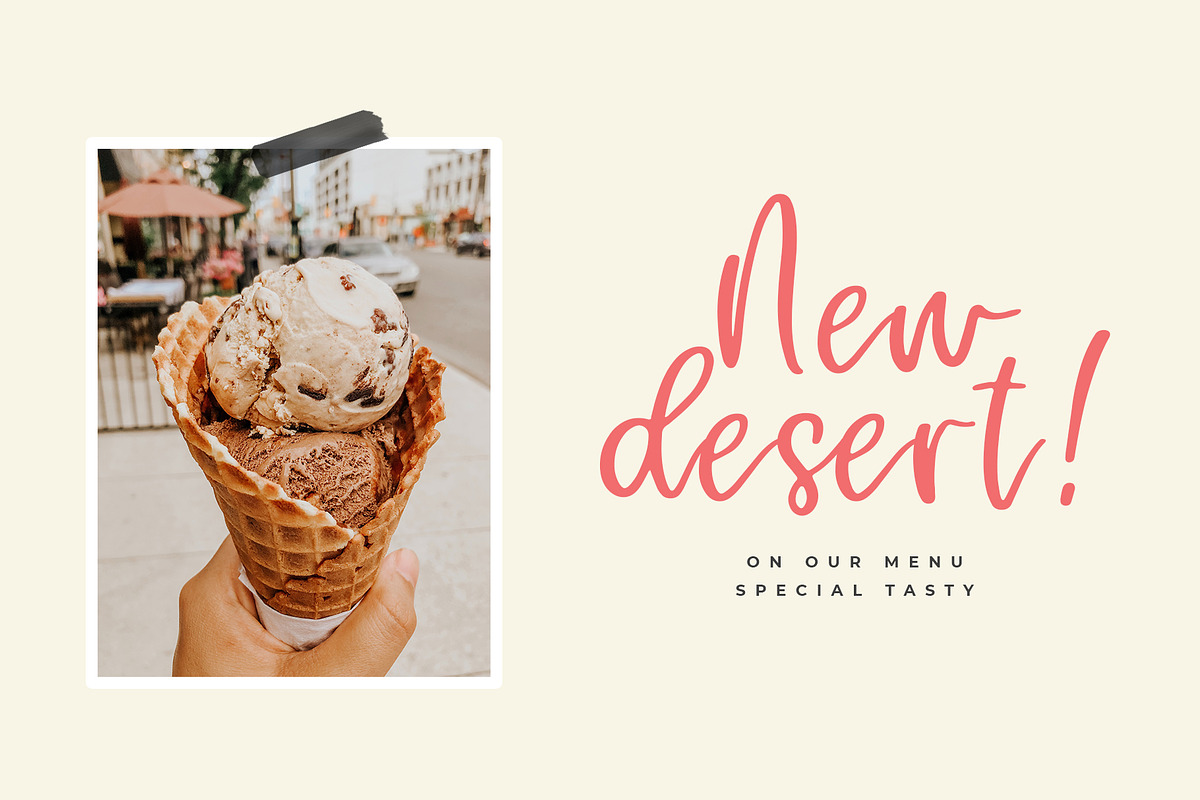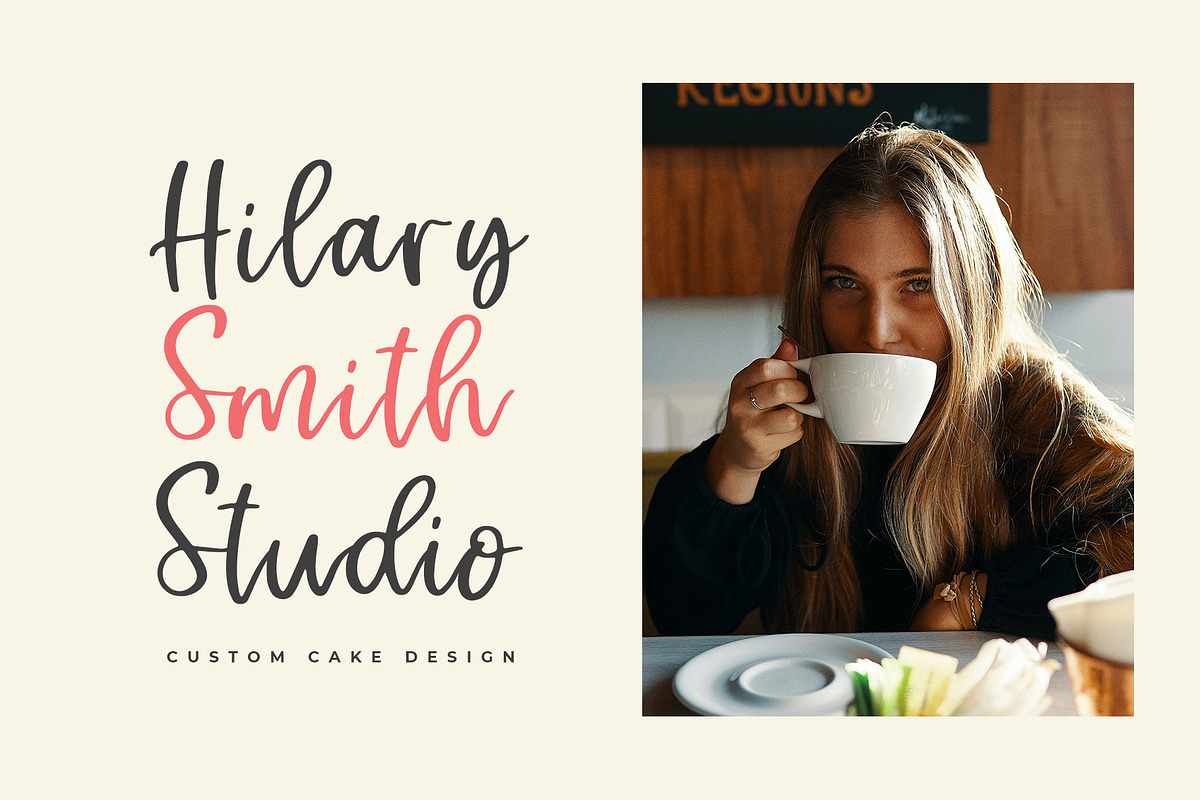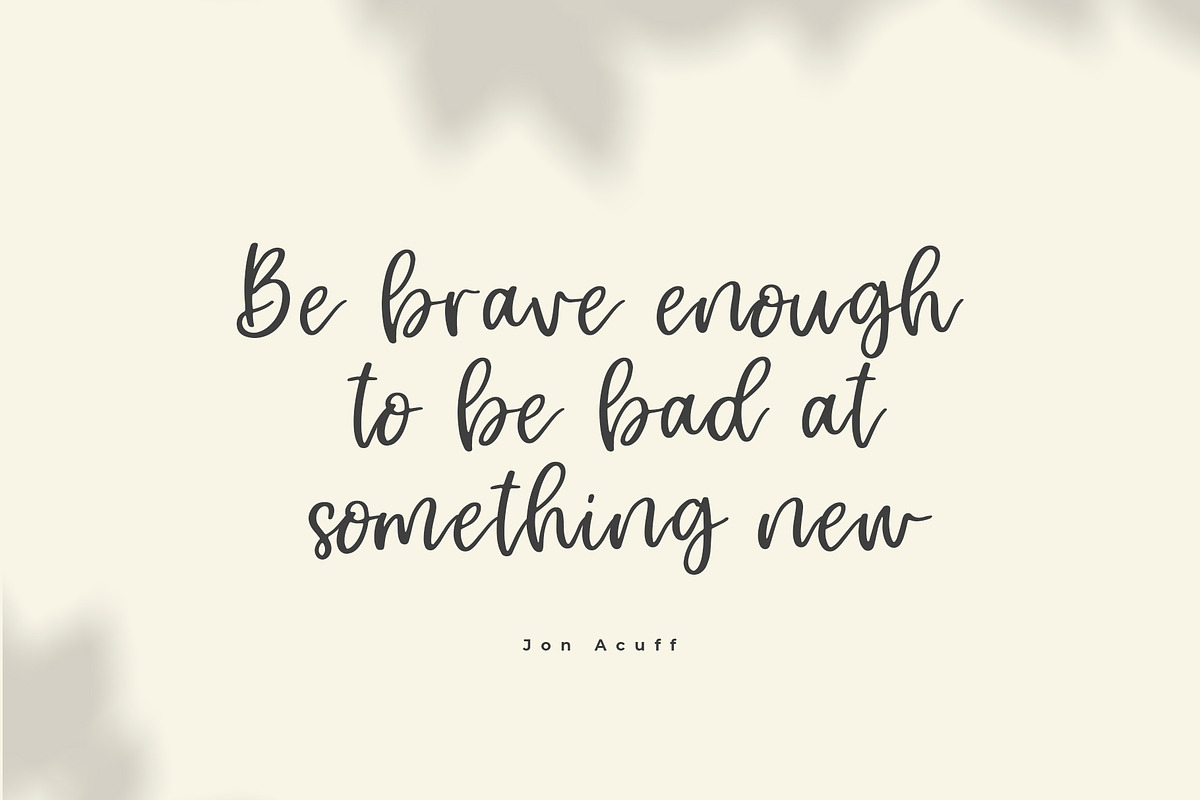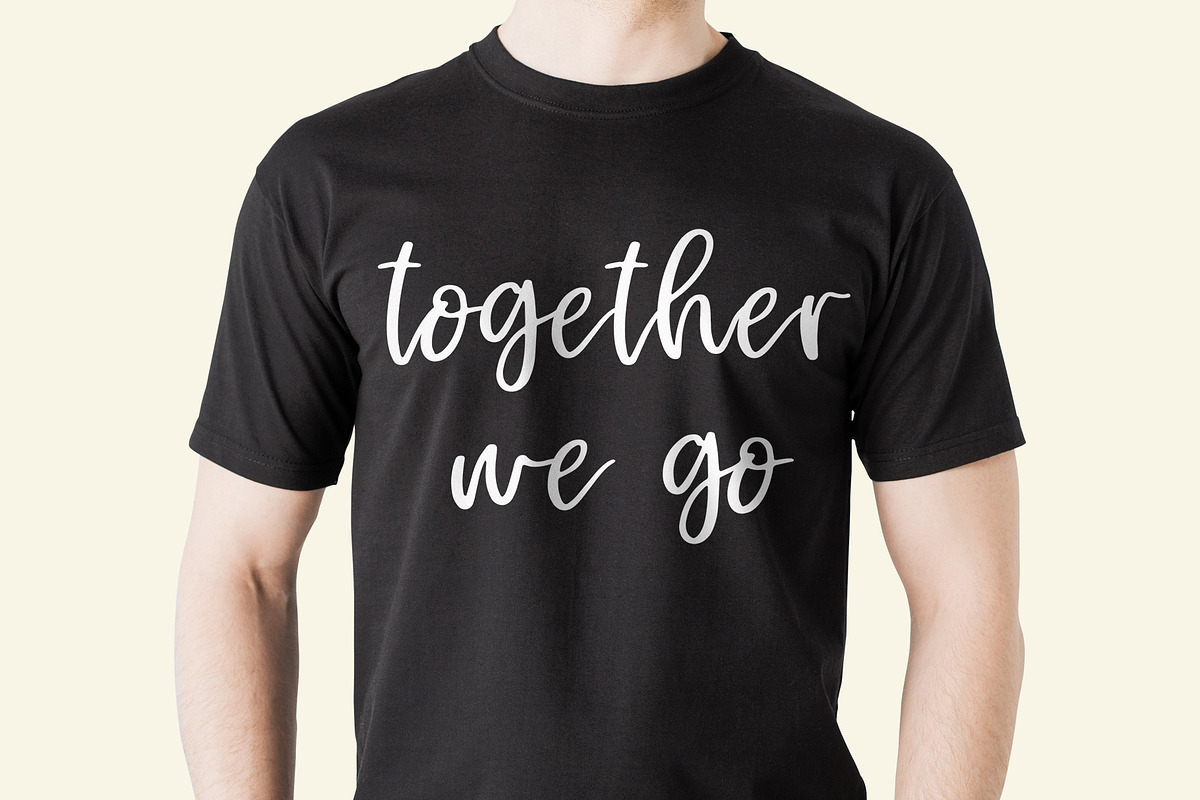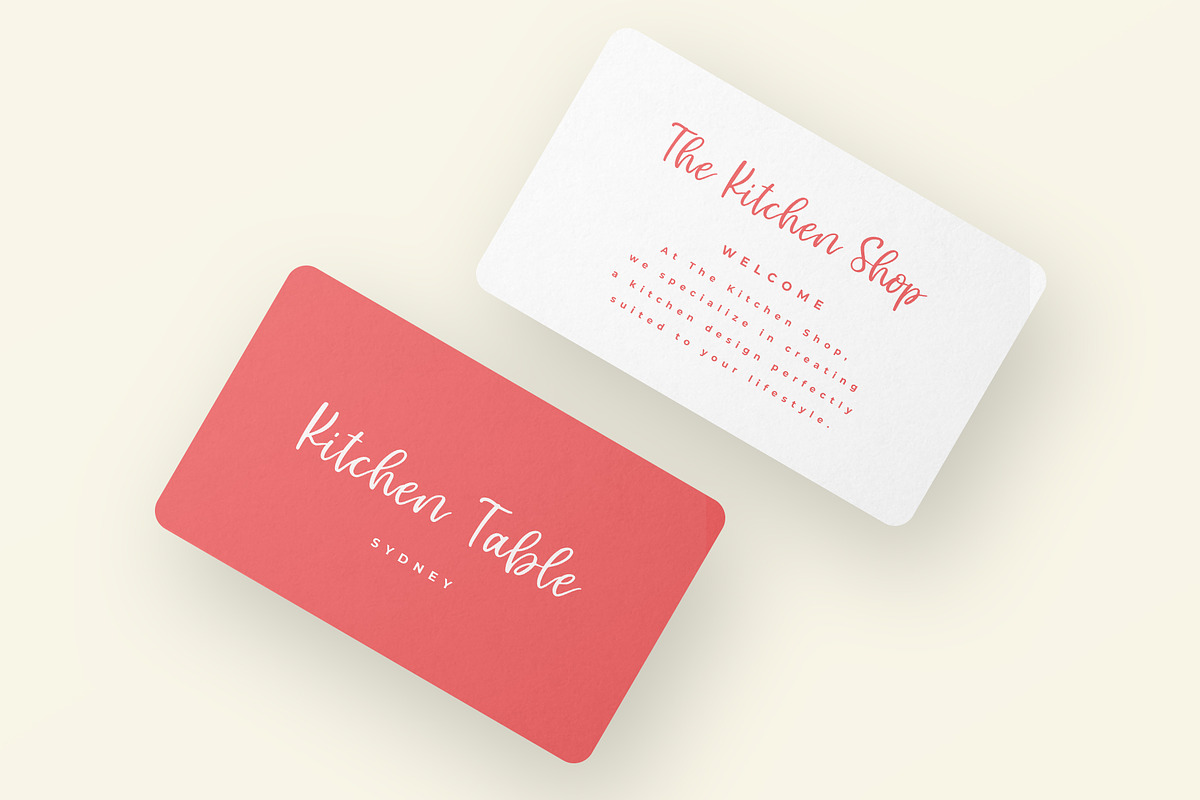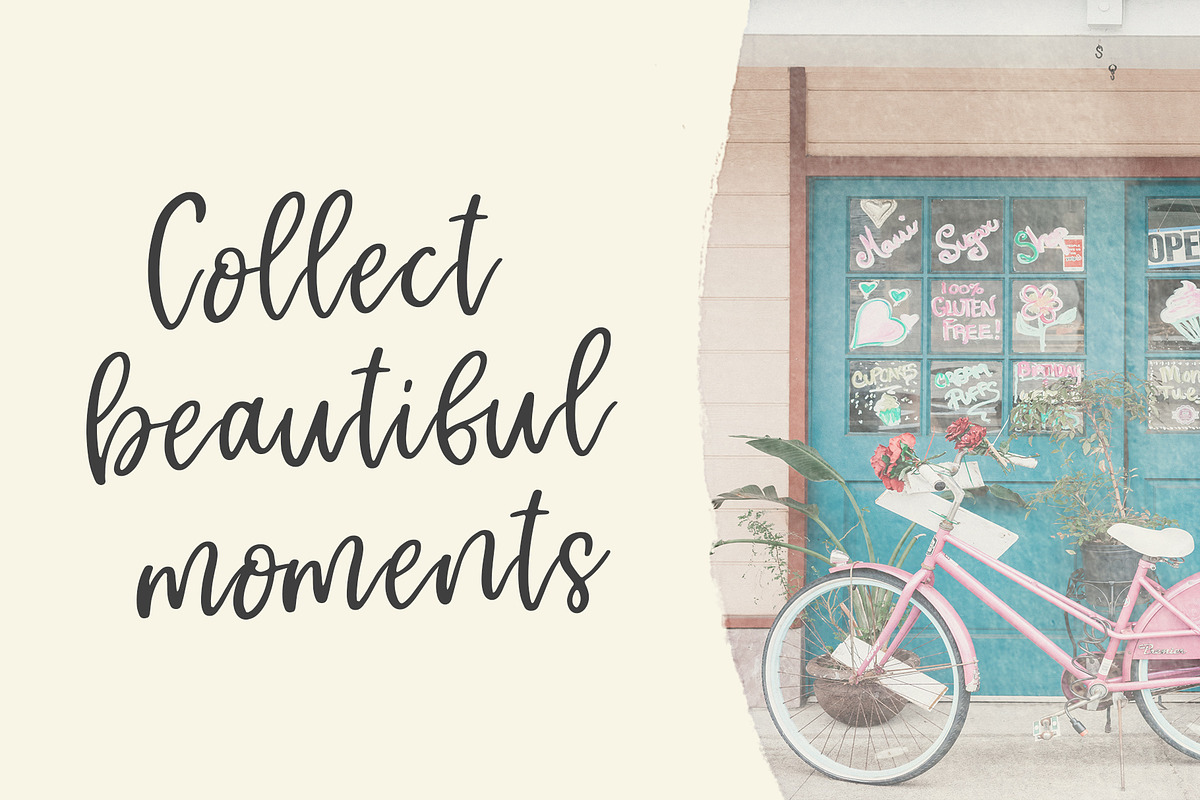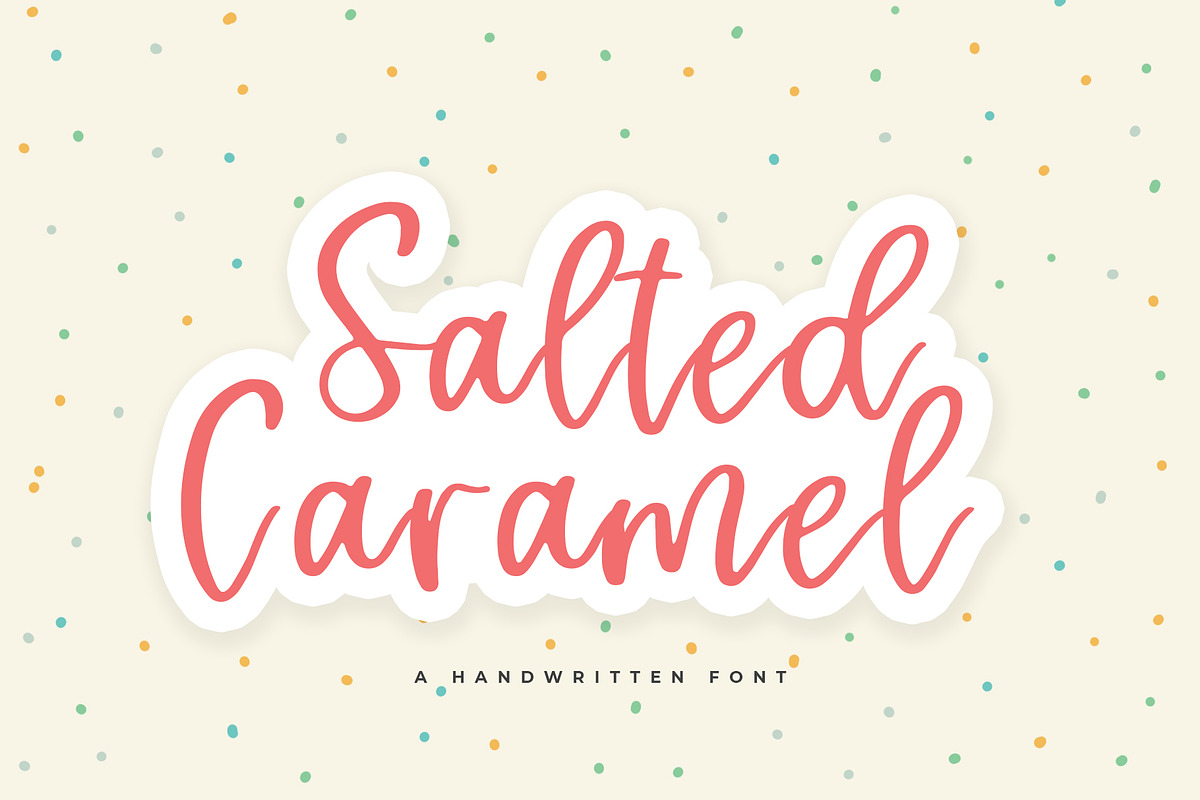
Salted Caramel
A Signature brush font Salted Caramel
This font includes all upper and lower case standard character, punctuation, numerals, ligatures!
You can create perfect and unique design of your wedding postcard, branding, invitations, quotes, prints, and many more!